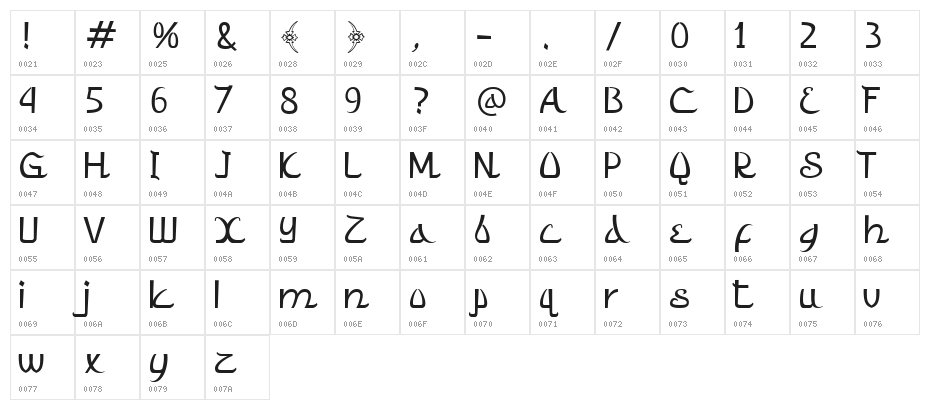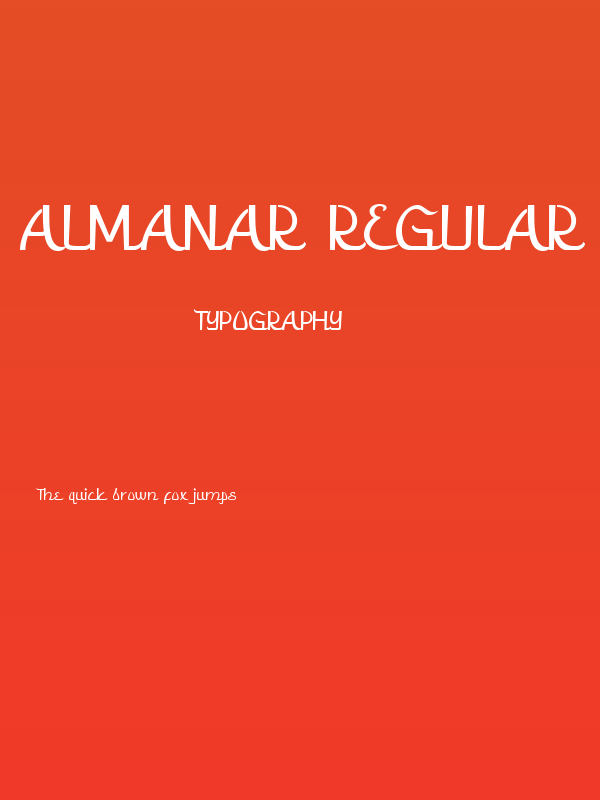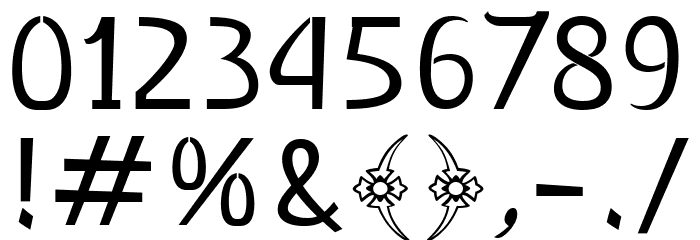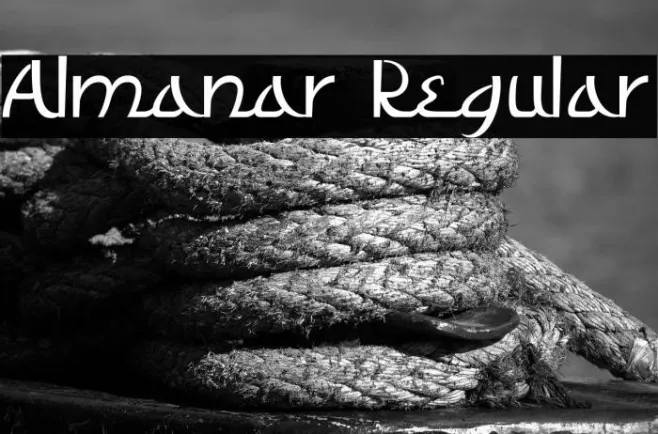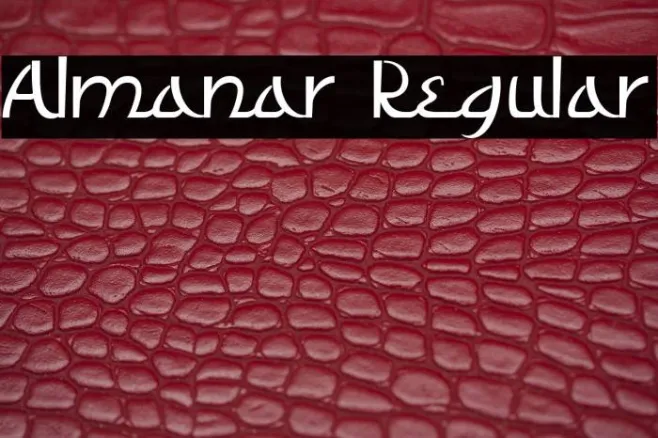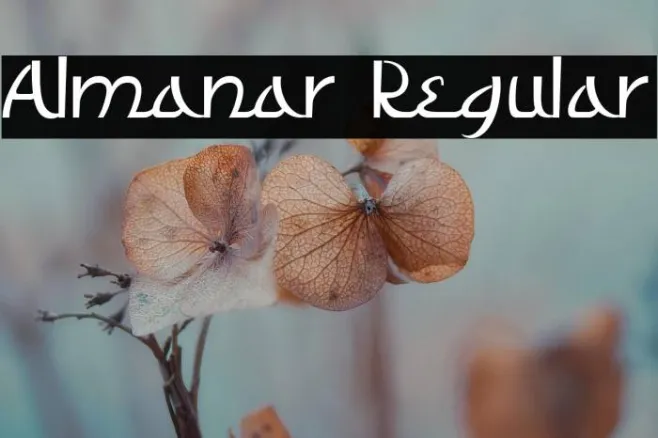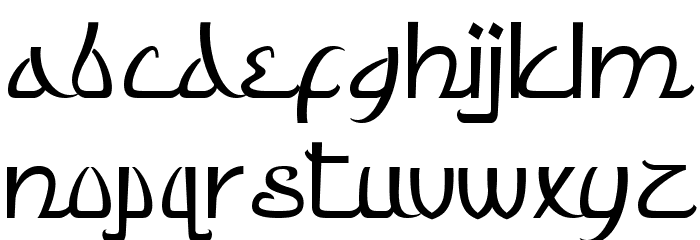
Almanar Regular Font
Almanar Regular Description
This font features a unique blend of modern and traditional elements, characterized by its distinct, flowing curves and sharp edges. The uppercase letters exhibit a bold presence with a slight slant, giving them a dynamic and energetic feel. The lowercase letters maintain a consistent style, with elegant loops and smooth transitions between strokes. Numbers are crafted with a similar aesthetic, ensuring uniformity across all characters. Special characters are creatively designed, adding a decorative touch to the overall appearance. The font's artistic flair makes it suitable for projects that require a touch of sophistication and creativity.
| Proposed Projects | Ideal for branding, logo design, posters, and creative projects that require a unique and artistic touch. |